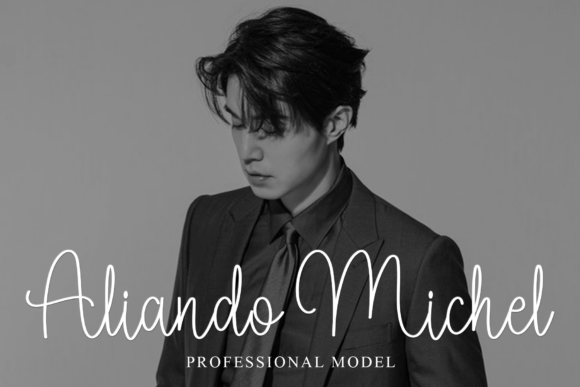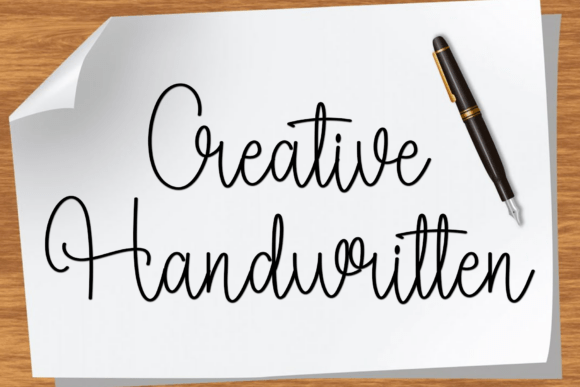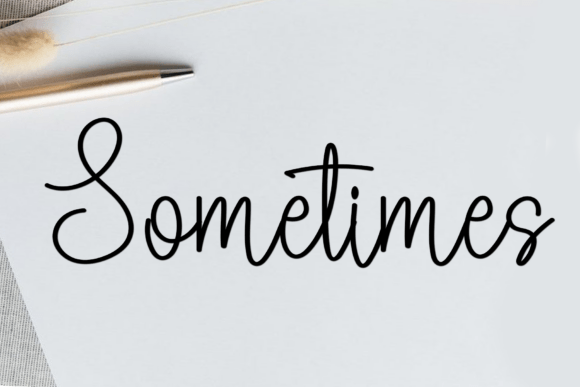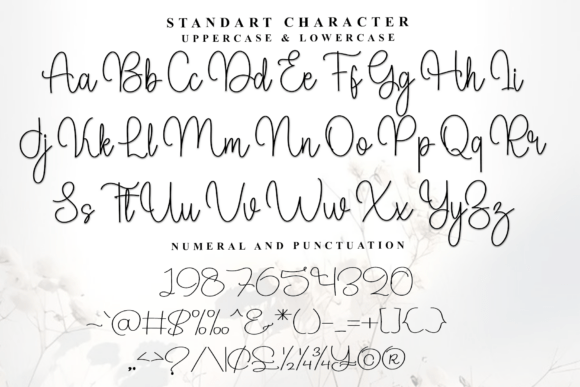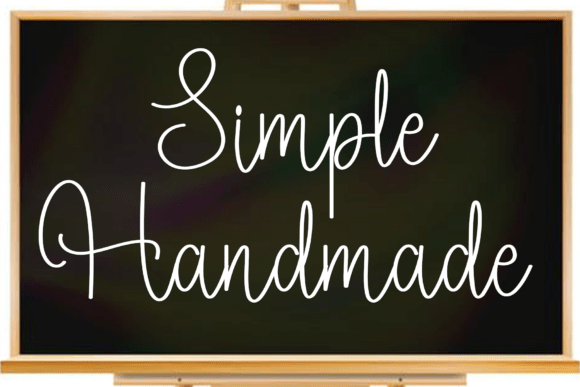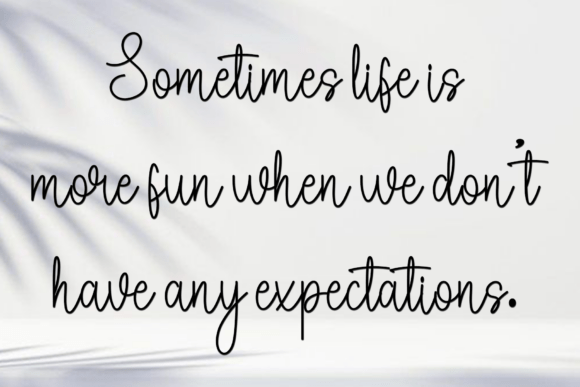
Introduction to Background Handmade Font
Background Handmade is a beautiful and eye-catching font designed with a soft, unique touch.
Its distinctive strokes give it a special character, making it meaningful and versatile for future use With various characters, itโs perfect for design projects, crafts, and other creative works.
Key Features of Background Handmade Font
Why Choose Background Handmade Font?